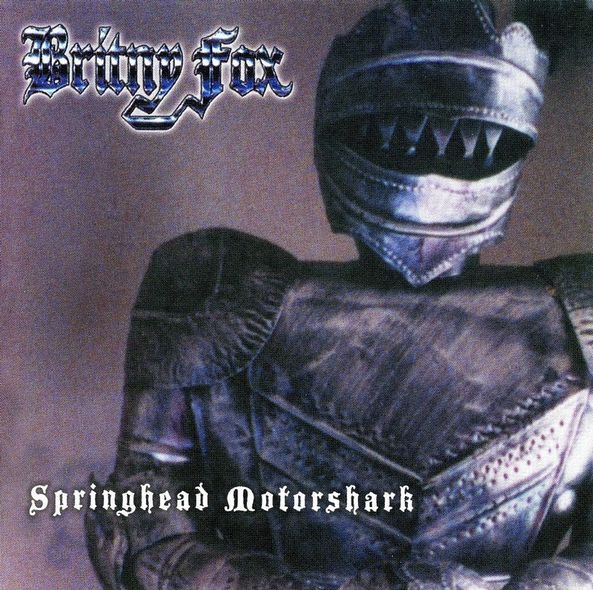
Britny Fox Font
Fonts in UseBritny Fox is an American rock band formed in 1985, known for their glam metal style, and Springhead Motorshark is their fourth studio album released in 2003 featuring a heavier sound with elements of hard rock and punk.
The band name resembles a free font called Old English Five, while the album title font is likely either Blackwood Castle by Dieter Steffmann or Blackmoor by David Quay, with the former featuring a 3D variant.